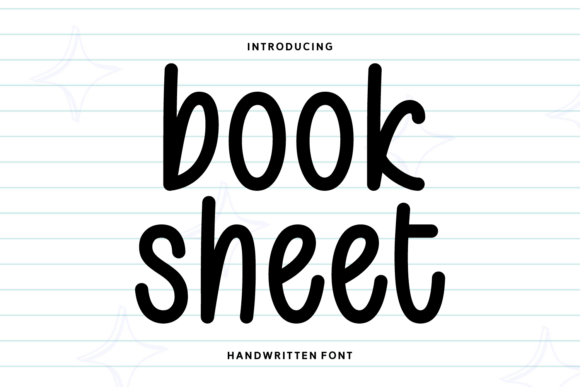
Discover the Charm of Book Sheet Handwritten Font
Have you ever been in the middle of a design project, and suddenly, you’re stuck on finding the perfect font? I recall a recent experience where I was working on a wedding stationery project, and my client specifically asked for a font that exuded elegance, style, and a touch of modernity. After hours of searching, I stumbled upon “Book Sheet Handwritten,” and it instantly became the life force of the project. This charming font is not just a typeface; it’s a versatile artistic tool that can elevate your designs to new heights.
The Allure of Book Sheet Handwritten
Book Sheet Handwritten is a beautiful fusion of elegance, style, and modernity. Its handwritten appeal has the potential to add a personalized touch to logos, making them stand out in a crowded market. The font’s trendy attributes are ideal for high-fashion projections or to infuse a feminine touch into your designs. With its stylish and modern attributes, product designs and beauty promotions stand out, making bold statements that connect instantly.
• ✨ Elegant and stylish handwritten appeal
• ✅ Versatile and adaptable to various design applications
• ✨ Modern and trendy attributes
• ✅ Extensive OpenType features and glyphs for creative freedom
While Book Sheet Handwritten is an exceptional font, there are a few minor quirks to be aware of:
• ⚠️ Some characters may require manual kerning for optimal spacing
• 🤔 Limited availability of Cyrillic and non-English language support
The Designer Inspiration Behind Book Sheet Handwritten
The story behind Book Sheet Handwritten begins with a designer who sought to create a font that combined the elegance of traditional calligraphy with the modernity of digital design. Inspired by the flowing lines of handwritten scripts and the versatility of digital typography, Book Sheet Handwritten was born. This font is a testament to the power of creative vision and technical expertise.
Font Name Book Sheet Font
Author Ade (7NTypes)
Q: What makes Book Sheet Handwritten unique?
A: Book Sheet Handwritten’s unique blend of elegance, style, and modernity sets it apart from other fonts.
Q: Does Book Sheet Handwritten support OpenType features?
A: Yes, Book Sheet Handwritten features extensive OpenType support, including glyphs and stylistic alternates.